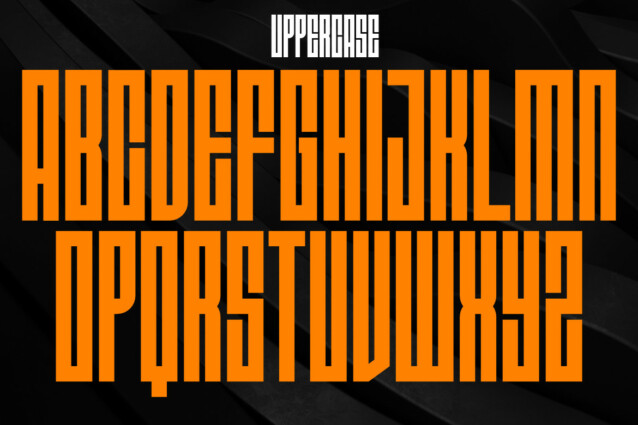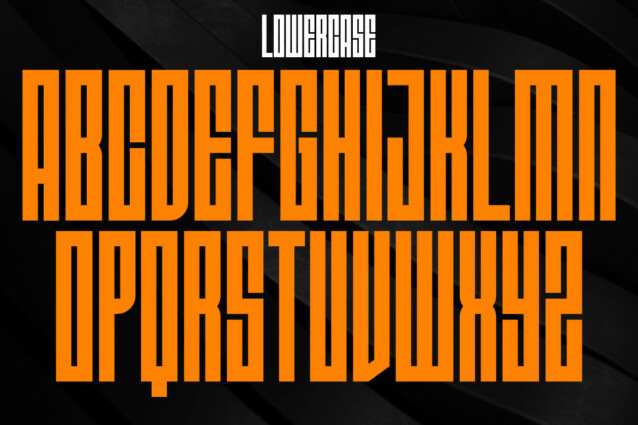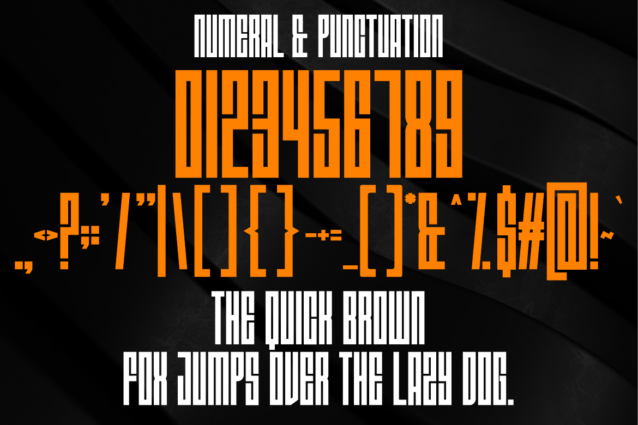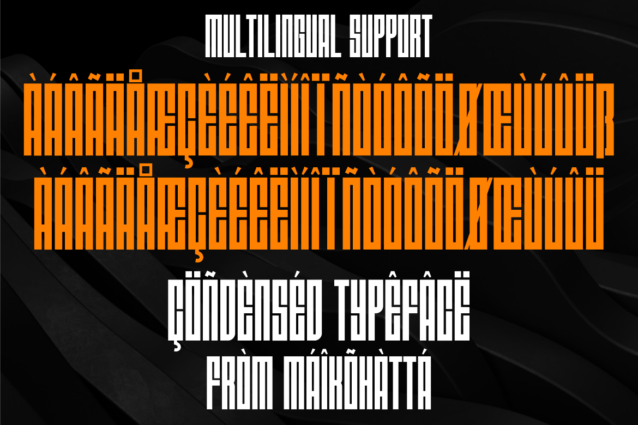
Maesiez Font is a type of font that is characterized by narrower or slimmer letterforms compared to regular or wide fonts. Condensed fonts are often used in various graphic designs, print materials, and other media because they have distinct advantages and unique characteristics
* Uppercase
* Lowercase
* Multilingual
* Ligature